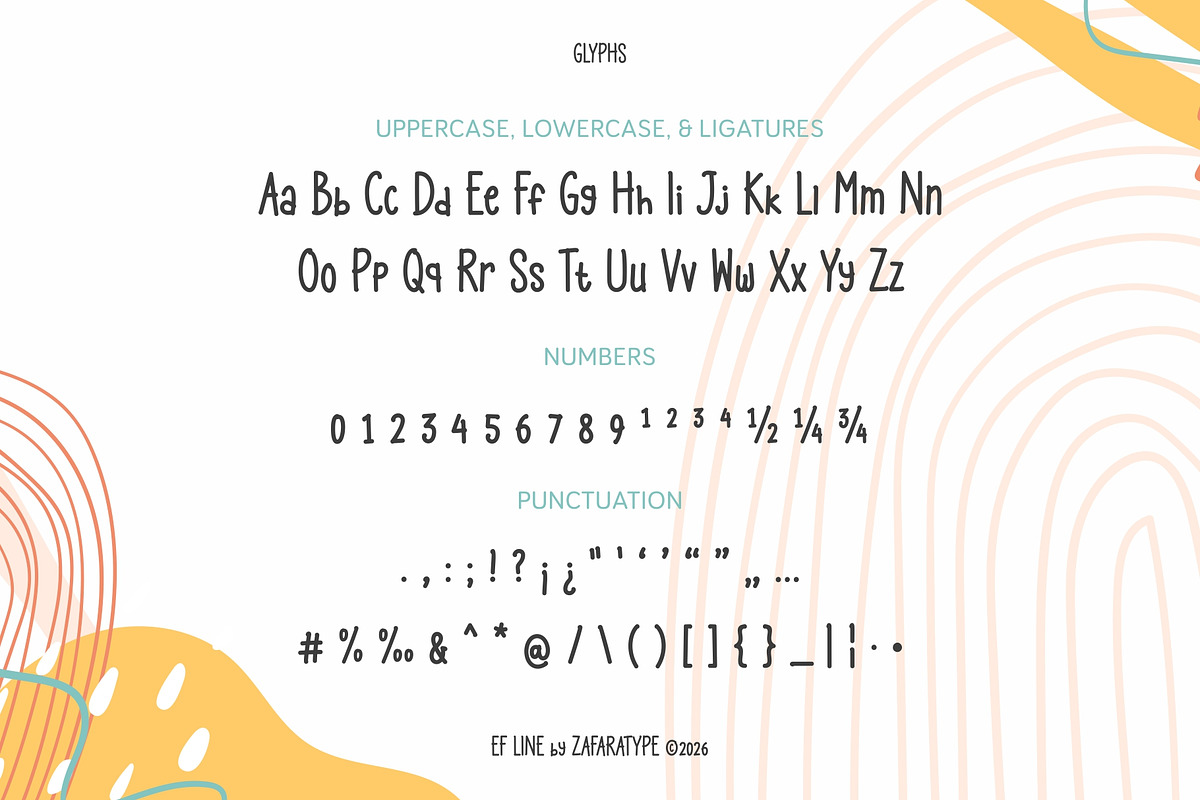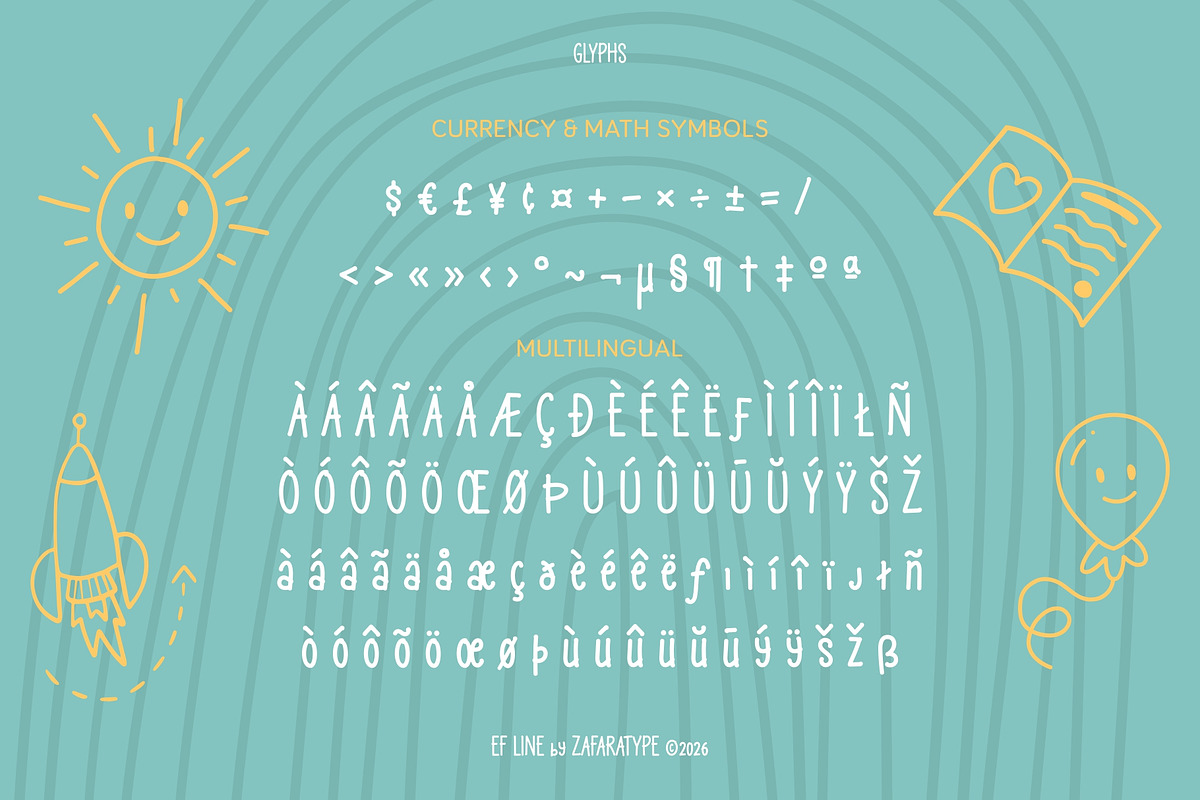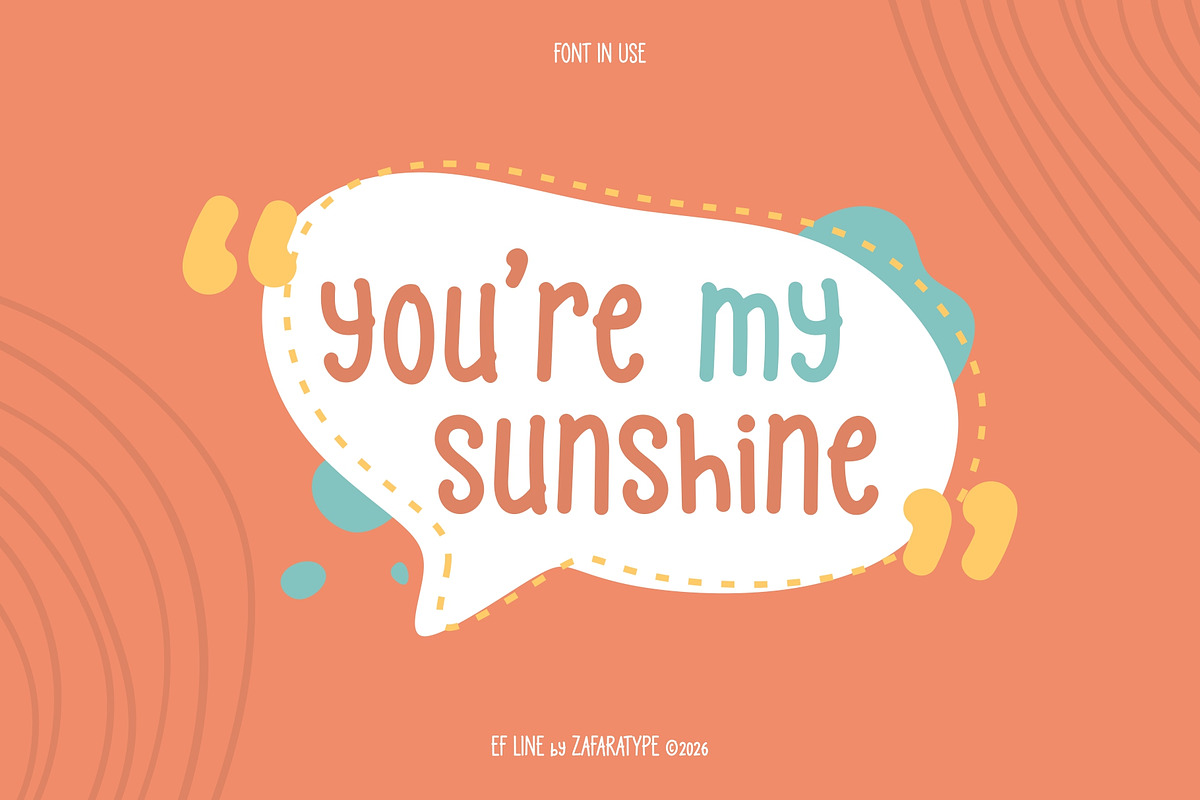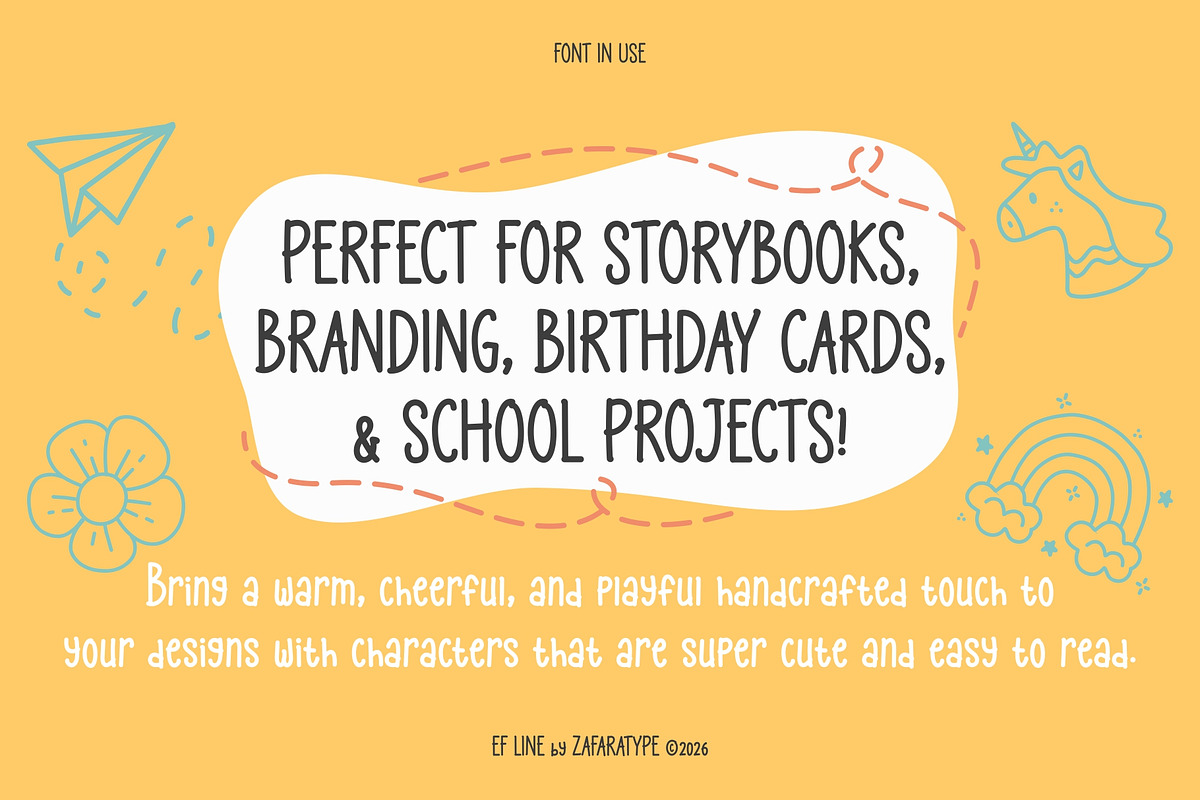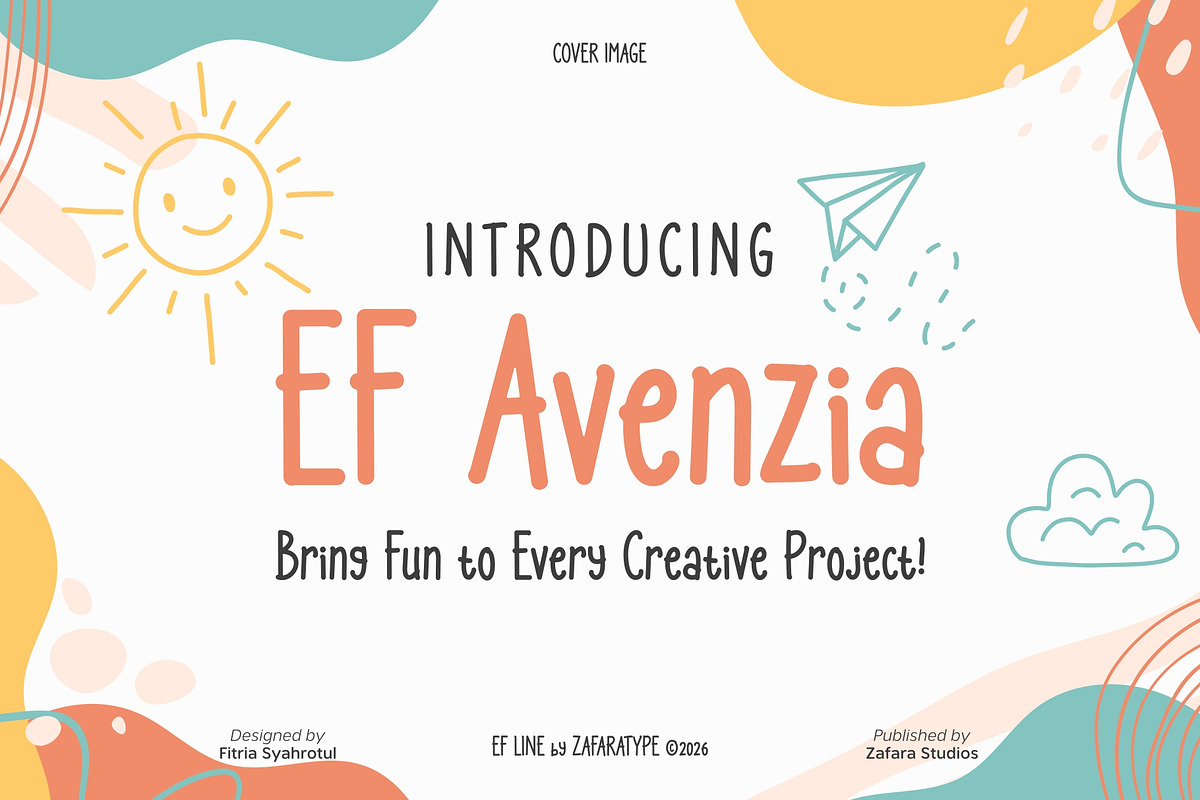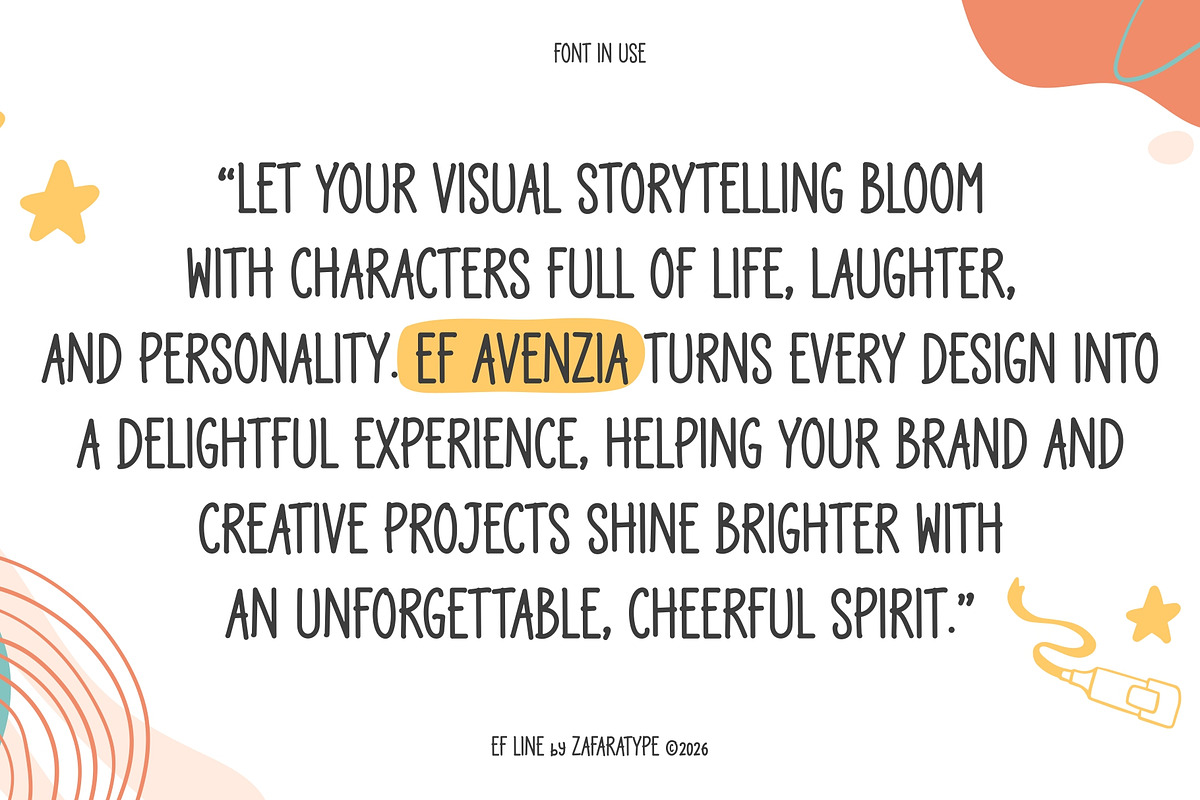
EF Avenzia
EF Avenzia is a quirky and cheerful handwritten display font that brings a playful handcrafted personality to every design. Featuring wobbly shapes, rounded forms, and naturally irregular strokes, it creates a cute and lively appearance while remaining friendly, expressive, and easy to read.
Designed to make visual storytelling feel more fun and memorable, EF Avenzia is perfect for storybooks, branding, birthday cards, children's projects, school projects, packaging, posters, social media, invitations, and creative stationery. Whether you're creating something joyful, imaginative, or heartwarming, it adds a charming handmade touch filled with life, laughter, and personality.
243 glyphs: Uppercase, lowercase, numbers & punctuation, symbols & accents, multilingual support